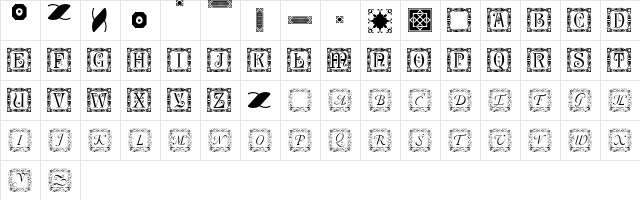
Kudos Kaps Three NF Regular
Design Context for Kudos Kaps Three NF Typeface
Kudos Kaps Three NF is a composed and adaptable typeface that performs quietly and consistently across a wide range of design contexts.